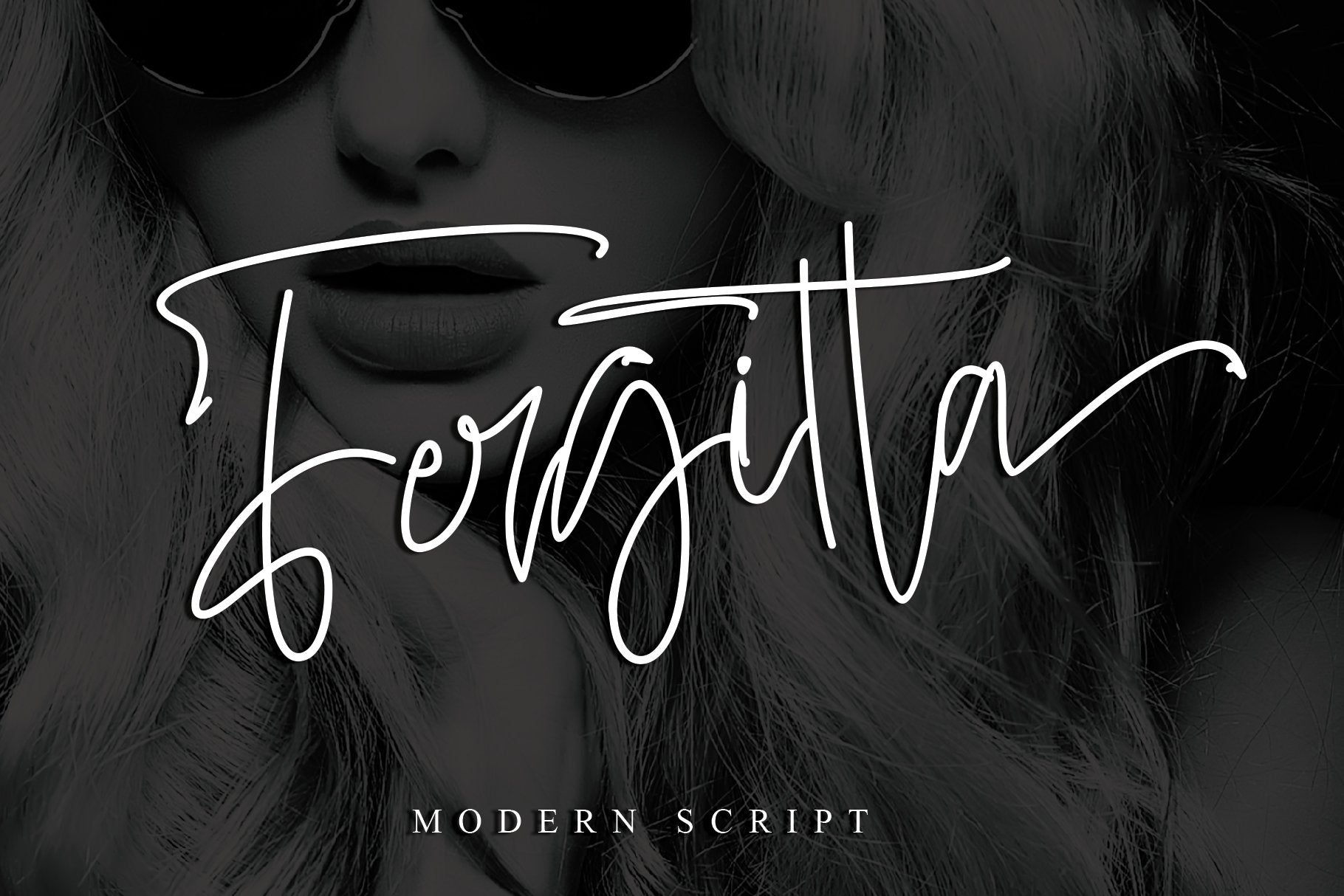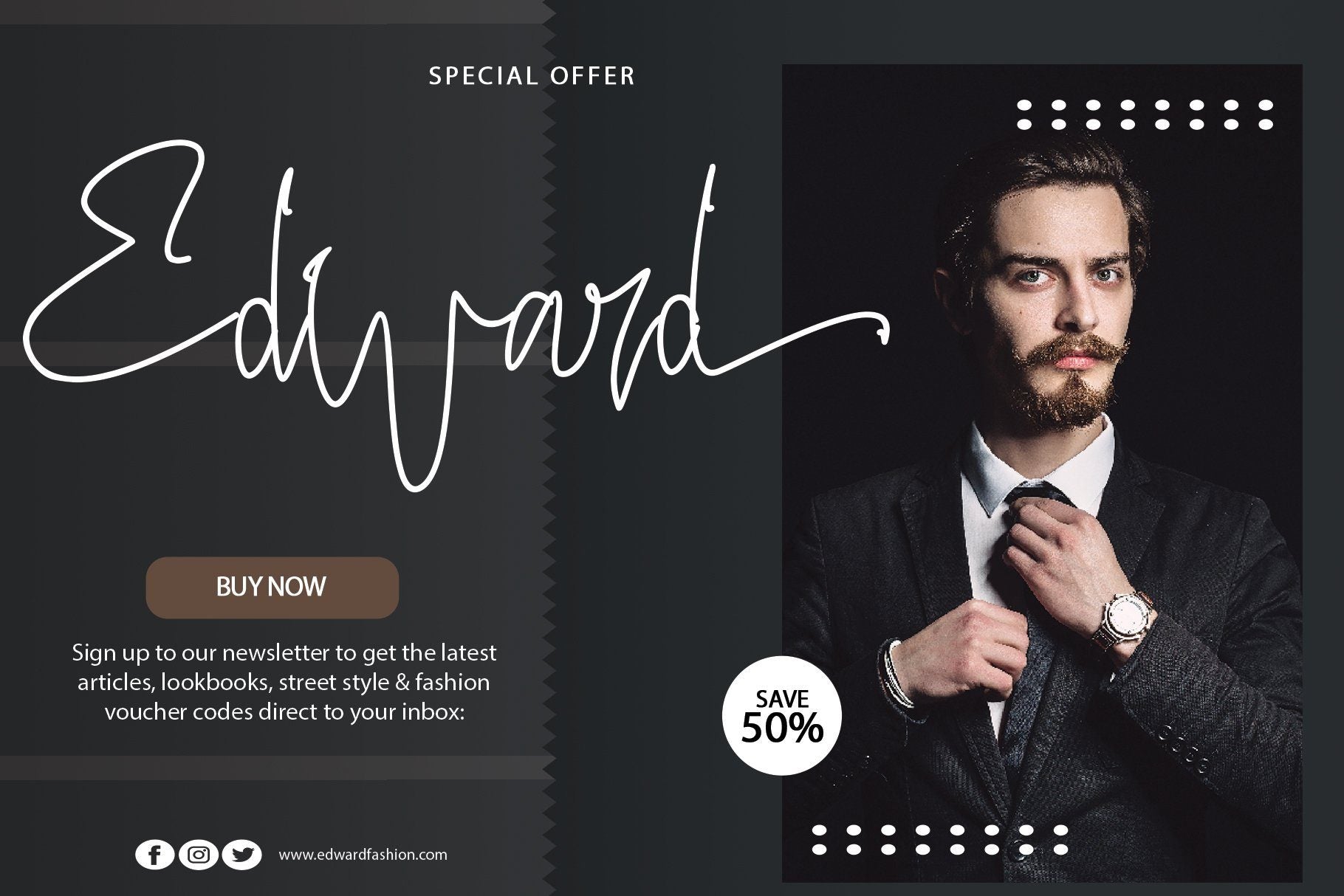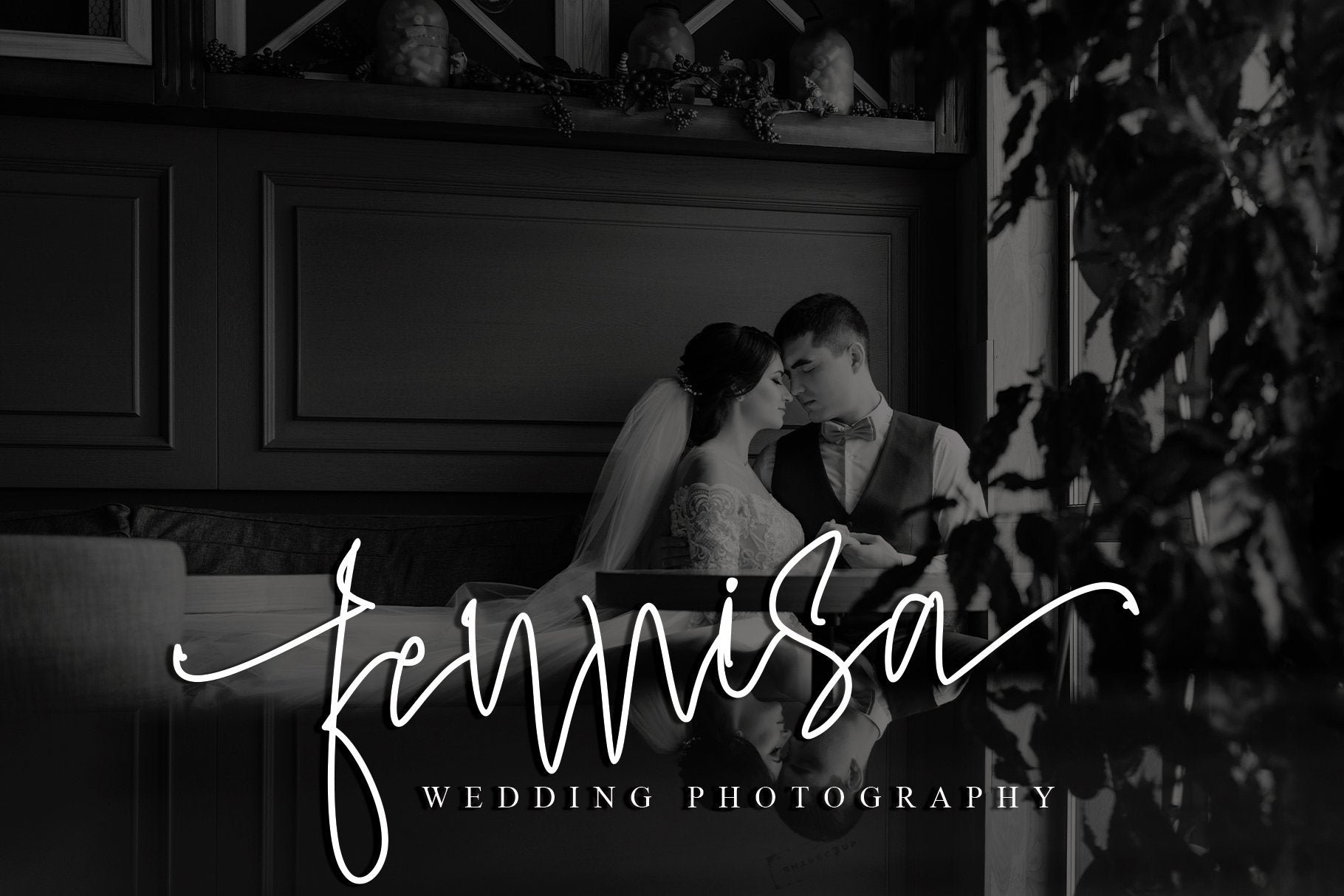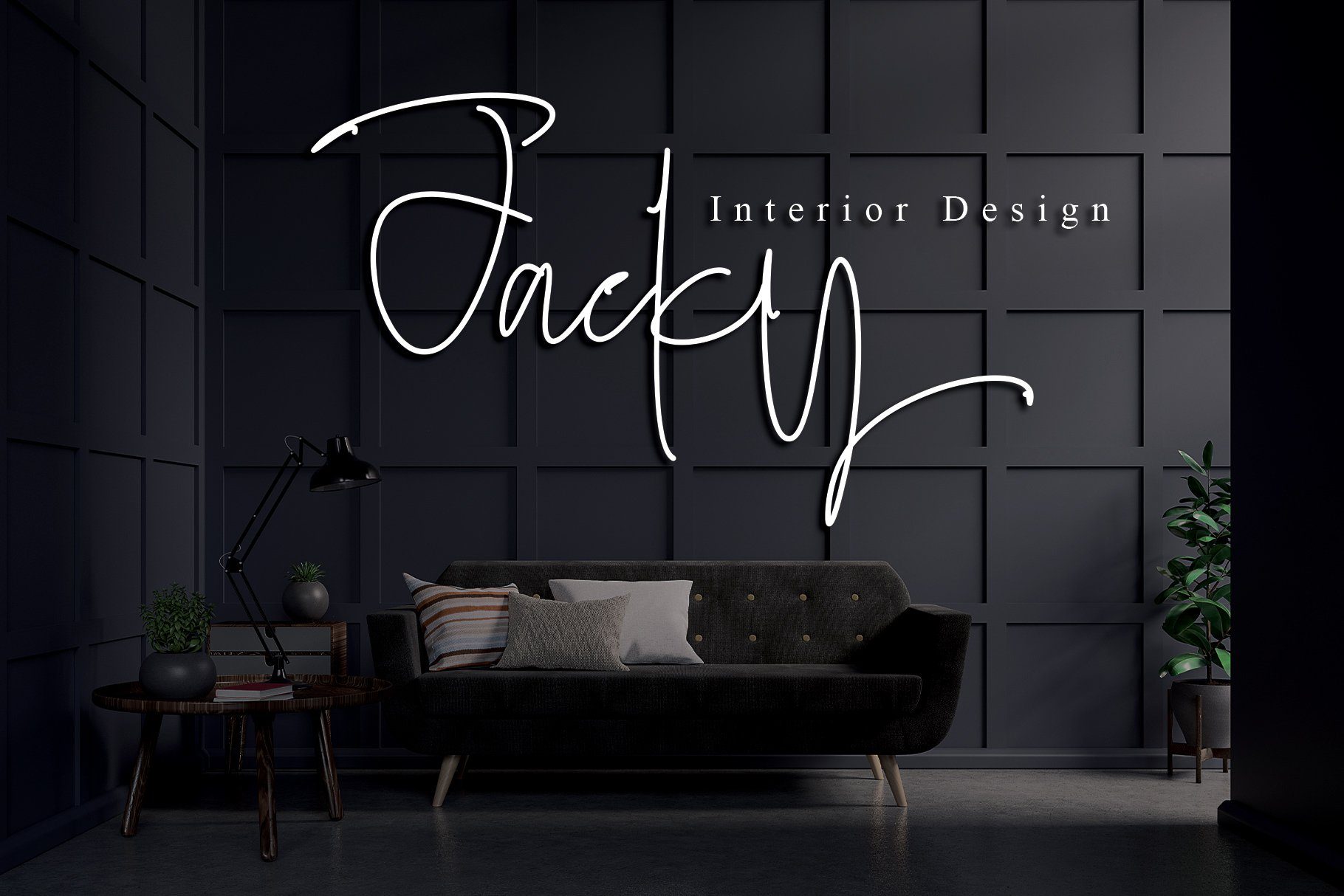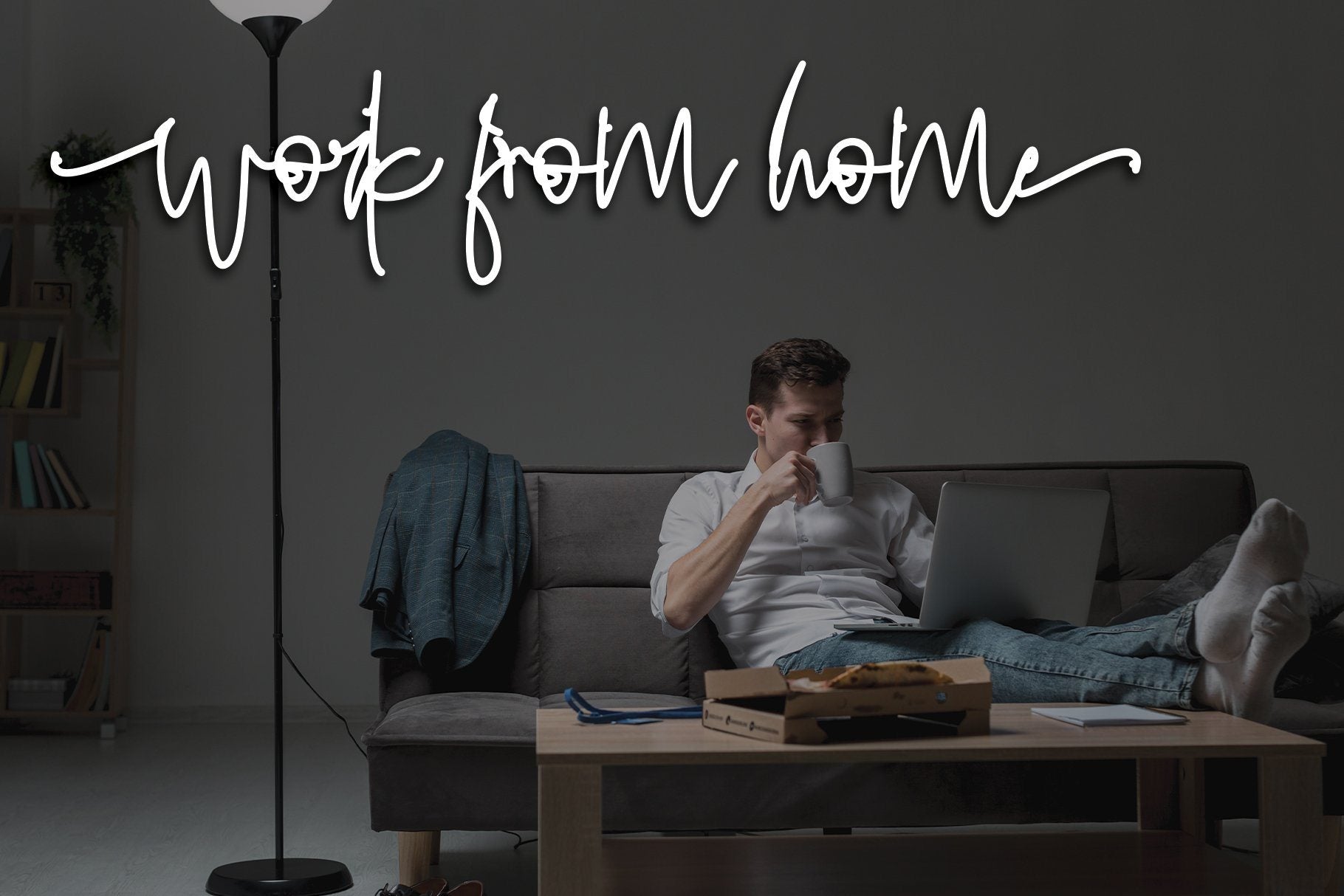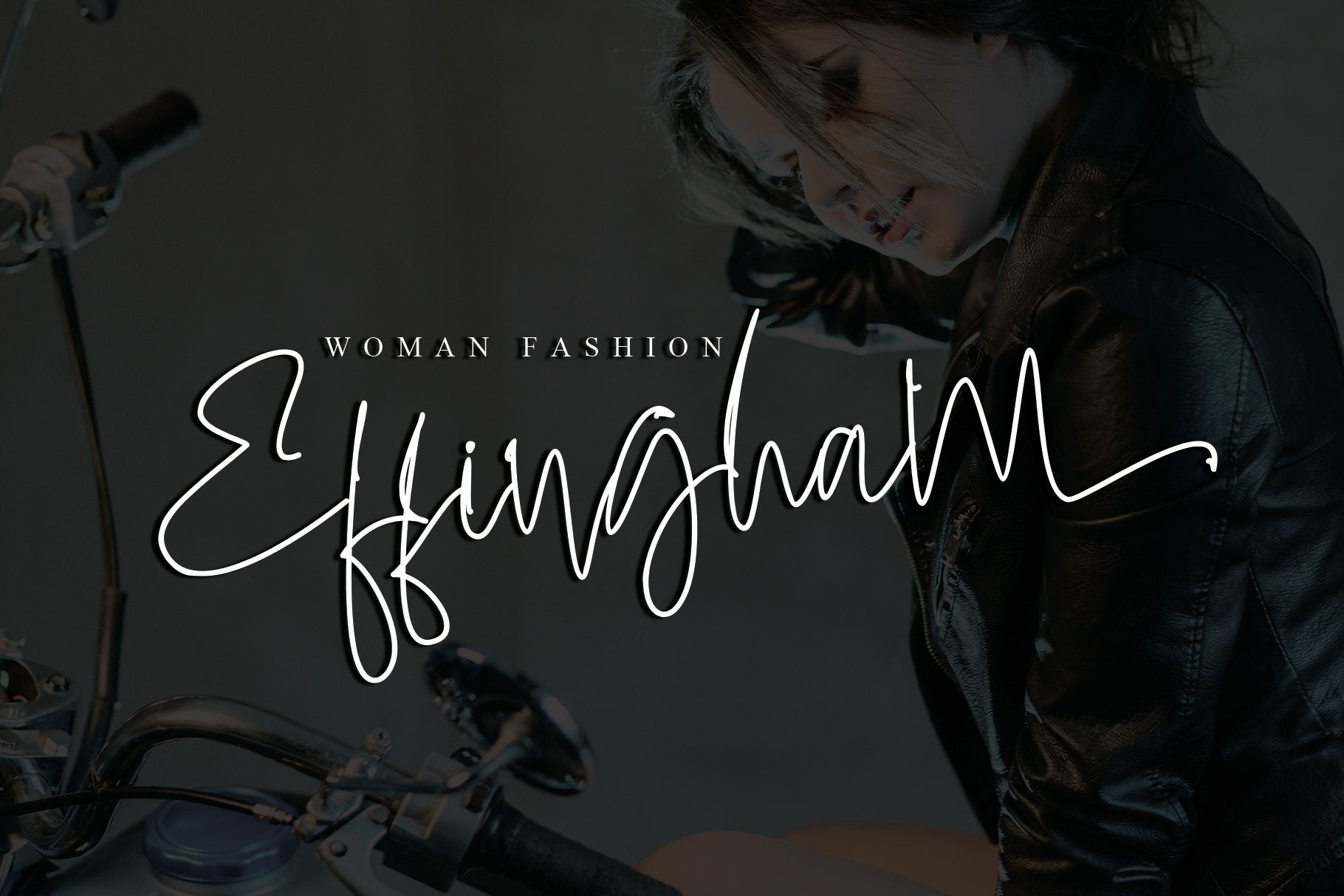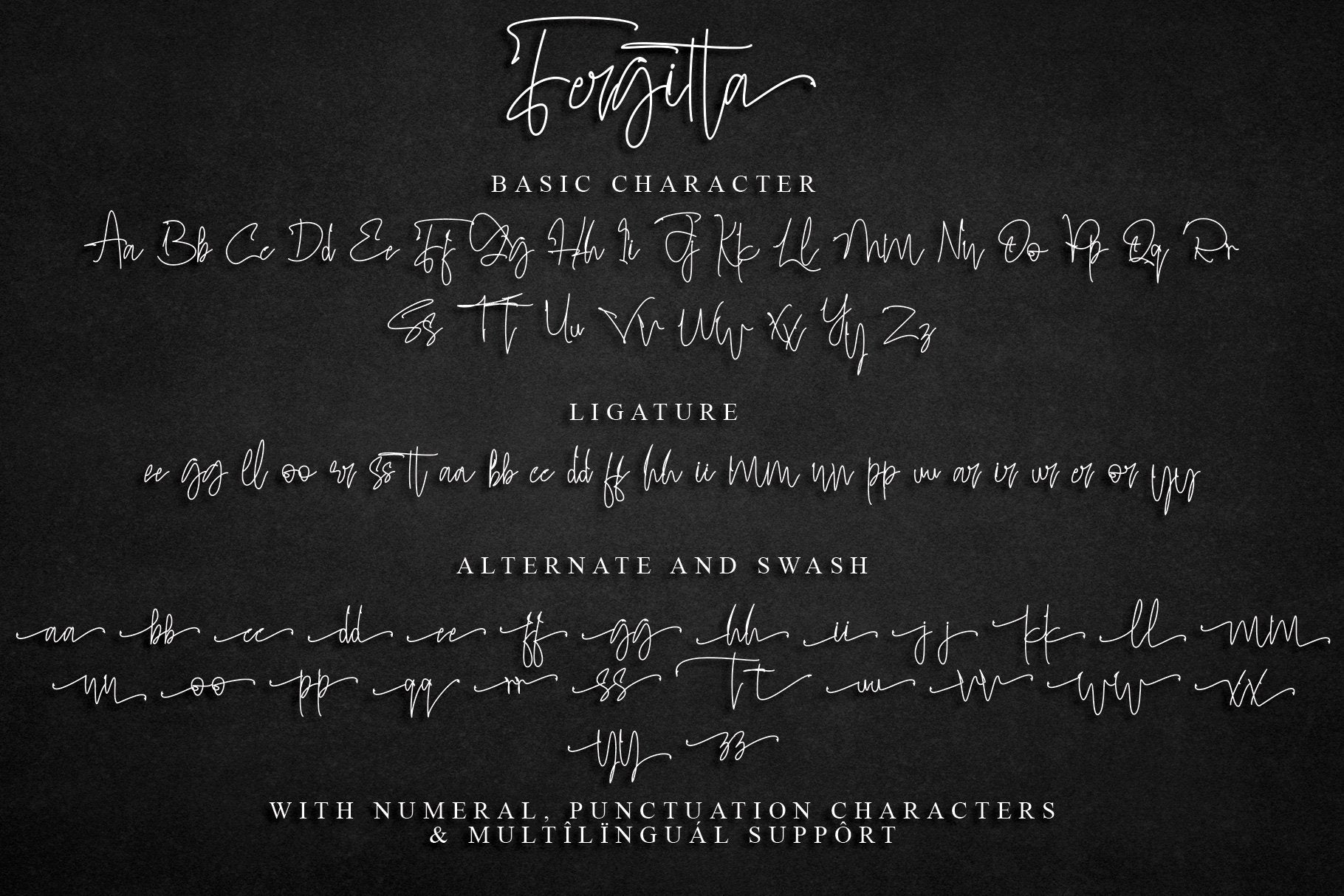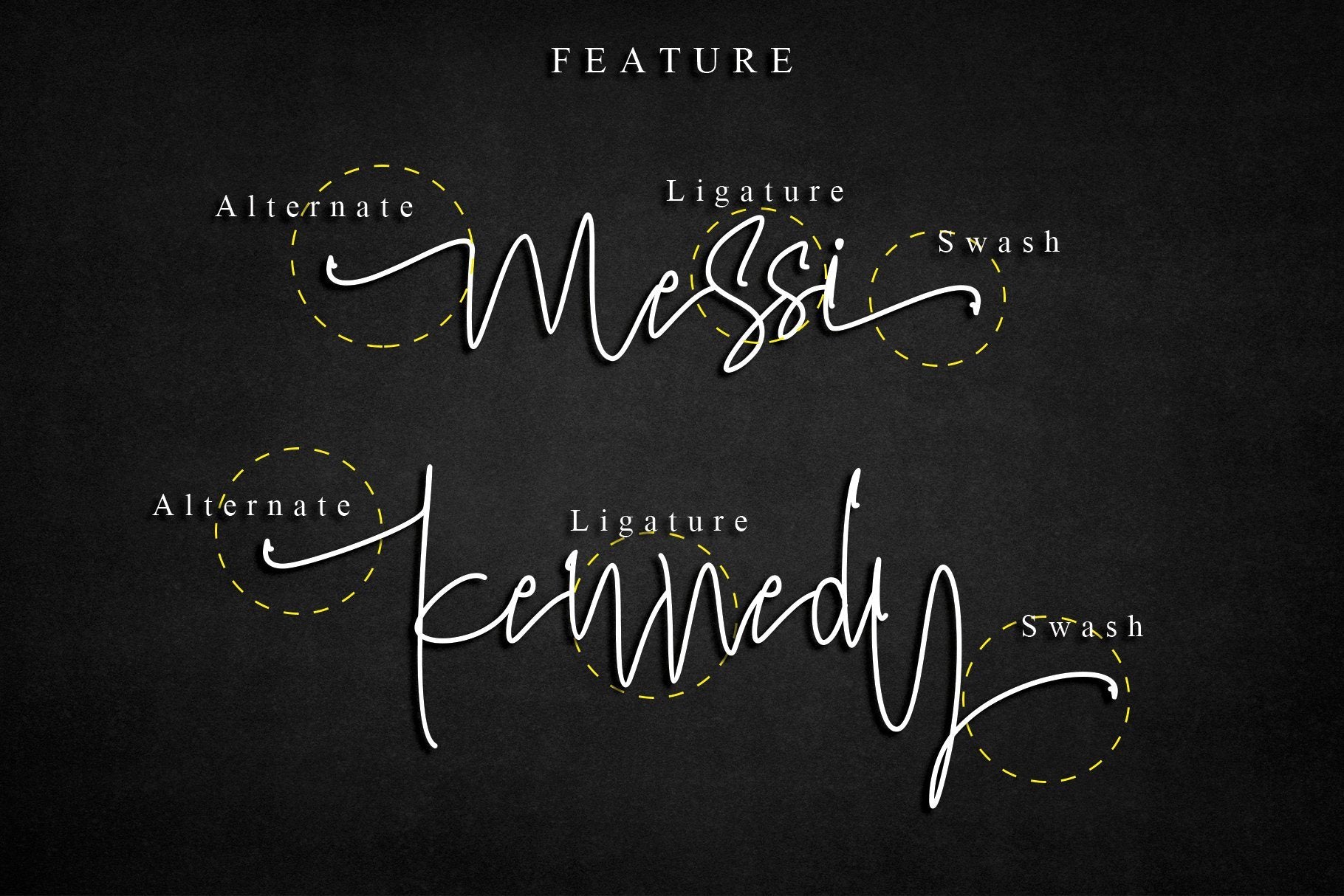
Fergitta
About Fergitta
Fergitta is signature monoline font. Clean and elegant, cursive, legible script font which can be used on a wide variety of designs such as: headlines, titles, headings, logos, branding, posters, invitations, books, and any other creative design. This font is PUA encoded which means you can access all of the cute glyphs and swashes with ease! It also features a wealth of special features including alternate glyphs and ligatures. What’s Included : Fergitta  (TTF, OTF, WOFF) Fergitta  Italic (TTF, OTF, WOFF) Works both on Mac & PC Simple installations Support silhouette Many features: Alternate, Swash and Ligature Accessible in the Adobe Illustrator, Adobe Photoshop, Adobe InDesign, CorelDraw, even work on Microsoft Word. Support multilingual; ä ö ü Ä Ö Ü ß ¿ ¡ To access the alternate glyphs, you need a program that supports OpenType features such as Adobe Illustrator CS, Adobe Photoshop CC, Adobe Indesign, and CorelDraw. More information about how to access alternate glyphs, check out this link  ( http://goo.gl/ZT7PqK ) This font is PUA encoded which means you can access all of the playful glyphs and swashes with ease! It also features a wealth of special features including alternate glyphs and ligatures. To stay up to date for my latest job, follow me and let’s be friends because there will be many promos. Our other products: BESTSELLER BLUEBELL MILEADILA ANGELIN GAMOS HERTINA JENNIE ANTIKA BLACK PINK SIGNATURE California Street BESTOWENS FAMILY